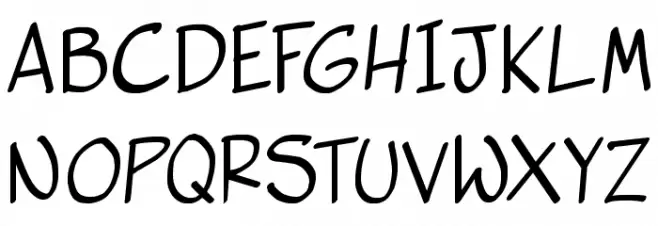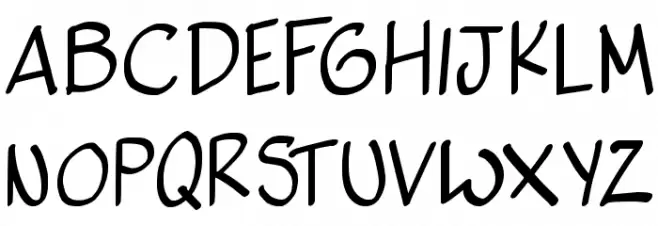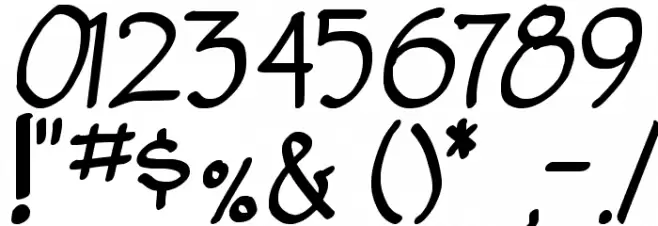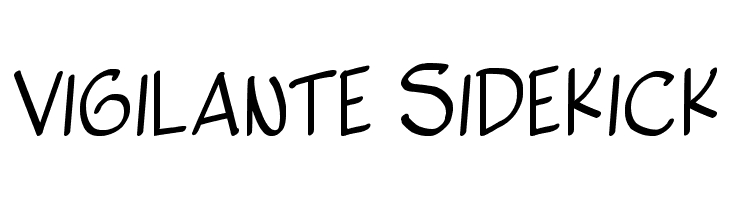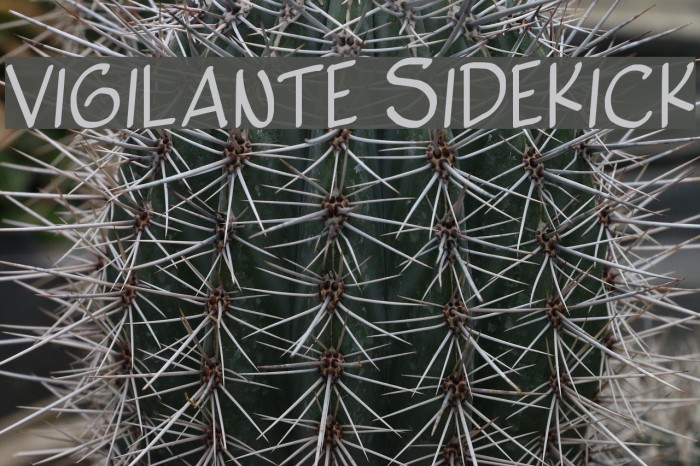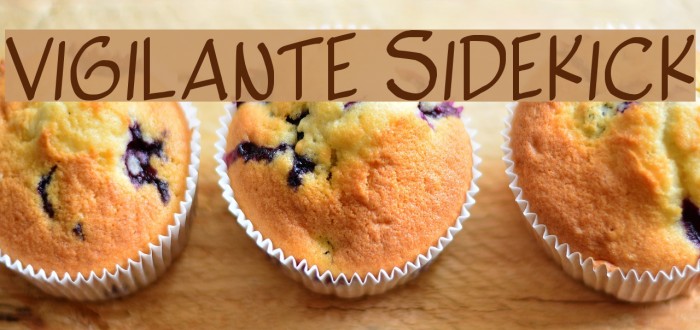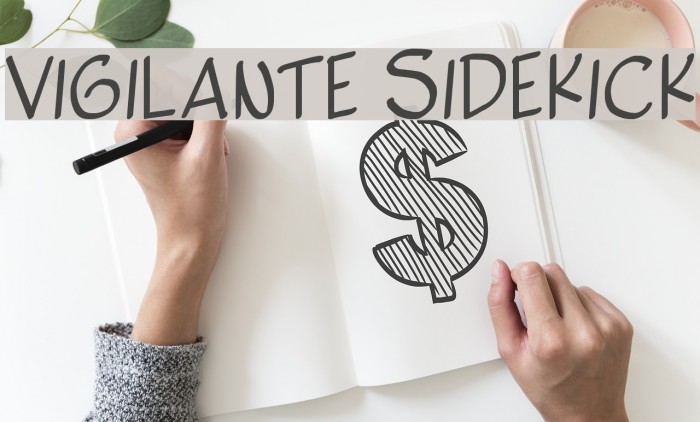
Vigilante Sidekick
This font exudes a playful and informal style, characterized by its handwritten appearance. The letters are slightly slanted, giving a dynamic and energetic feel. The strokes are consistent in width, contributing to a uniform look across all characters. The rounded edges and smooth curves add a friendly and approachable vibe. This font is versatile, suitable for projects that require a personal touch or a casual tone. It maintains readability while adding a unique flair, making it ideal for creative designs.
A playful, handwritten font with a dynamic and informal style.
- Proposed Projects: Ideal for greeting cards, children's books, casual branding, and social media graphics.
- Overall Style: Casual
- Use Case: Headlines, Informal text, Creative projects